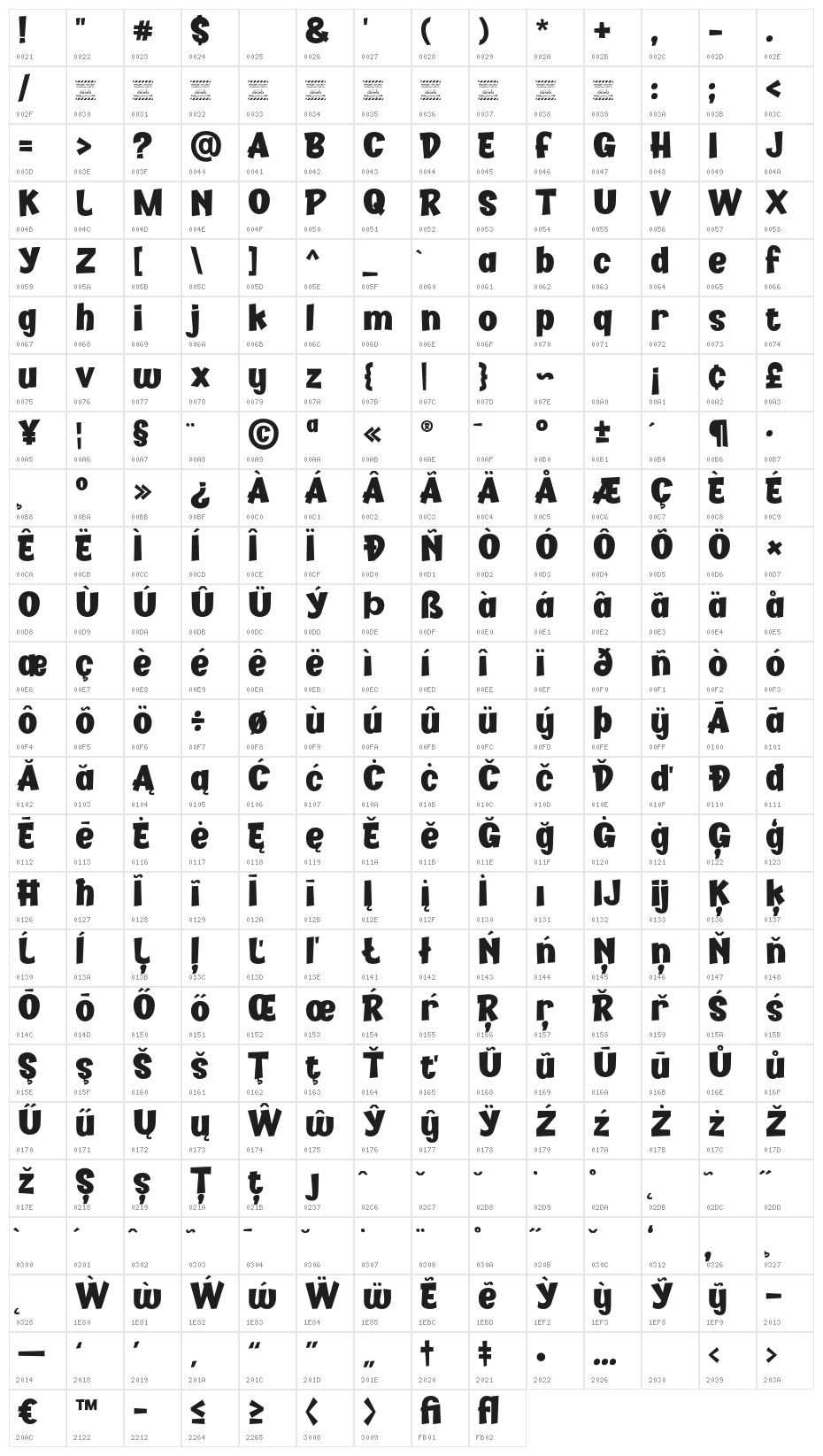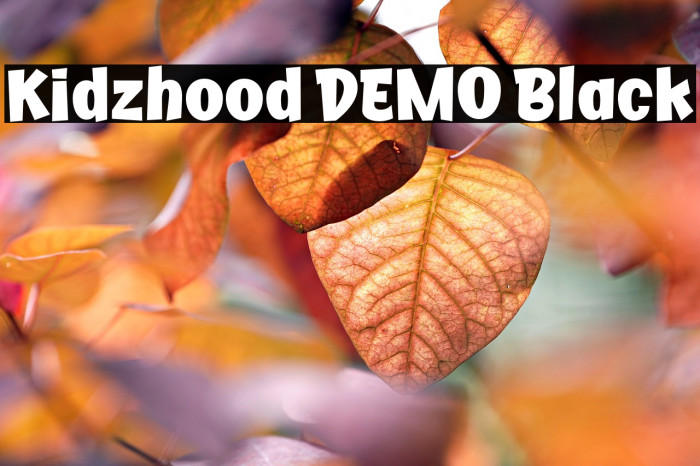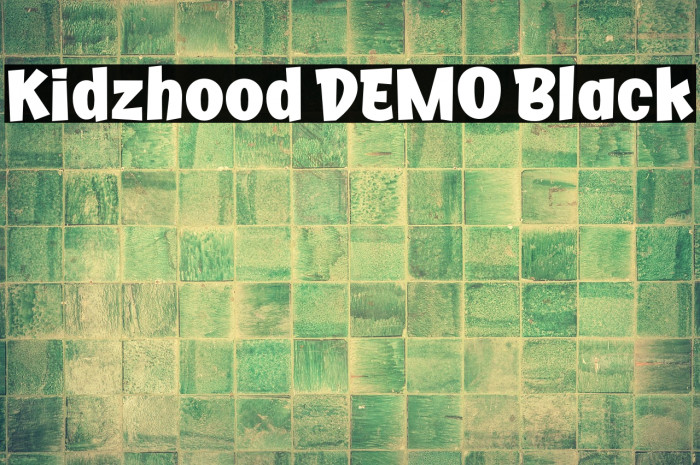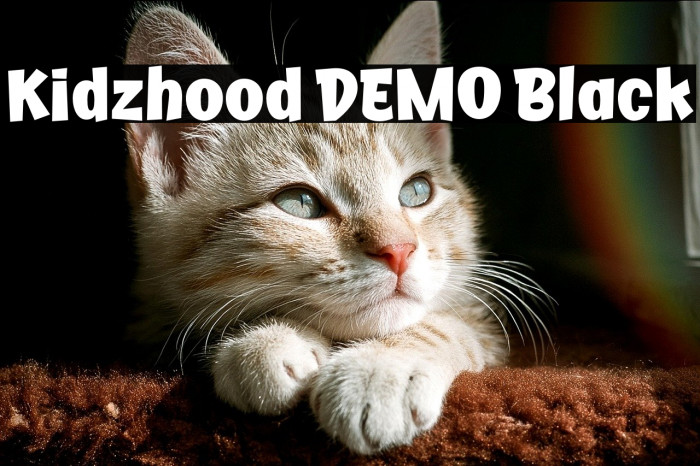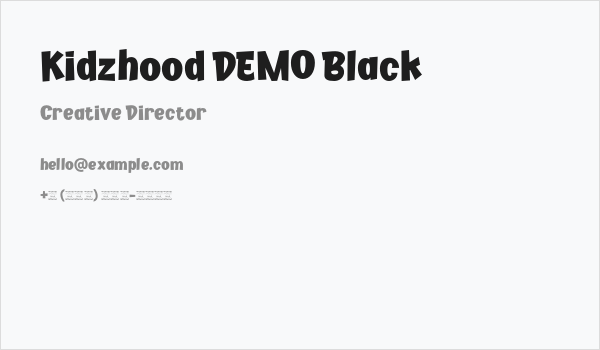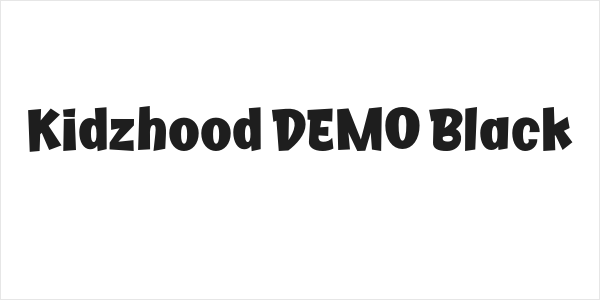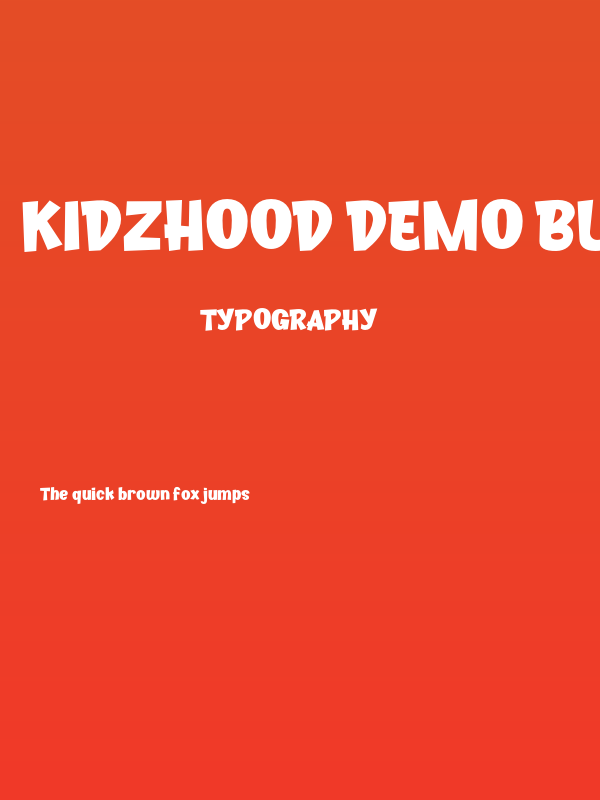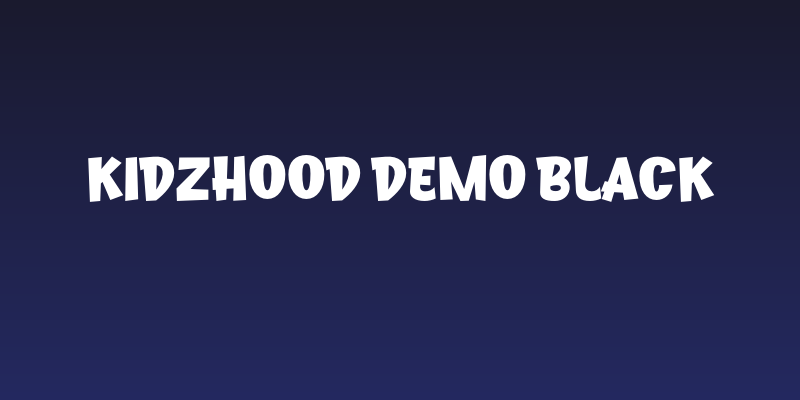
Kidzhood DEMO Black Font
Kidzhood DEMO Black Description
This playful and bold font features a whimsical and chunky design, perfect for capturing attention with its exaggerated curves and thick strokes. The letters are slightly irregular, adding a sense of fun and spontaneity. The uppercase and lowercase characters maintain a consistent style, with rounded edges and a lively appearance. The numbers and special characters follow the same playful theme, making the font versatile for various creative projects. Its boldness ensures high visibility, making it ideal for children's materials, playful branding, or any project requiring a touch of whimsy.
| Proposed Projects | Ideal for children's books, playful branding, posters, and creative designs. |